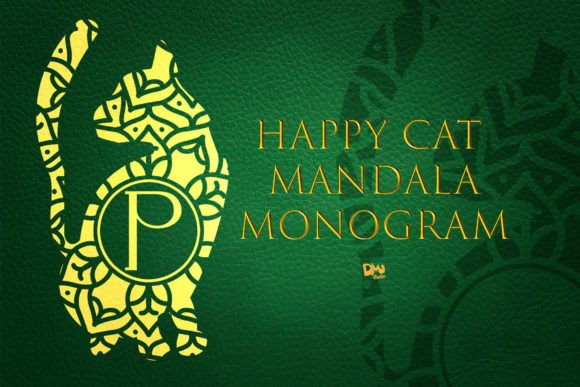
Calling all cat enthusiasts, creative visionaries, and design aficionados! Prepare to be captivated by our Happy Cat Mandala Monogram Font, the ultimate ode to feline charm and artistic expression. Step into a whimsical world where cats dance amidst mandalas, their playful spirits leaping off the page. This purrfect decorative typeface is the purr-fect addition to your font collection, ready to transform your creative projects into masterpieces.
Immerse yourself in the enchanting world of Happy Cat Mandala Monogram. Each character dances with intricate details, showcasing cats in playful poses, surrounded by mesmerizing mandalas. From playful kittens frolicking in fields to majestic felines lounging in the sun, this font captures the essence of feline grace and charm.
Unleash your creativity and let Happy Cat Mandala Monogram elevate your designs to new heights. Whether you're crafting eye-catching logos, enchanting invitations, or whimsical social media posts, this font will add a touch of magic to every project. Its versatility knows no bounds, making it the perfect choice for a wide range of creative endeavors.
Elevate your funny videos to side-splitting hilarity by incorporating Happy Cat Mandala Monogram. Its playful and lighthearted nature will leave your viewers chuckling and yearning for more. From animated cat antics to humorous cat memes, this font will add an extra layer of amusement to your visual storytelling.
With Happy Cat Mandala Monogram by your side, you'll never face a creative block again. It's the ultimate font for cat lovers, doodlers, and anyone seeking a touch of whimsy in their designs. Embrace the paw-sitive vibes and let your creativity soar with this captivating font. Download Happy Cat Mandala Monogram today and embark on a delightful journey of artistic exploration!